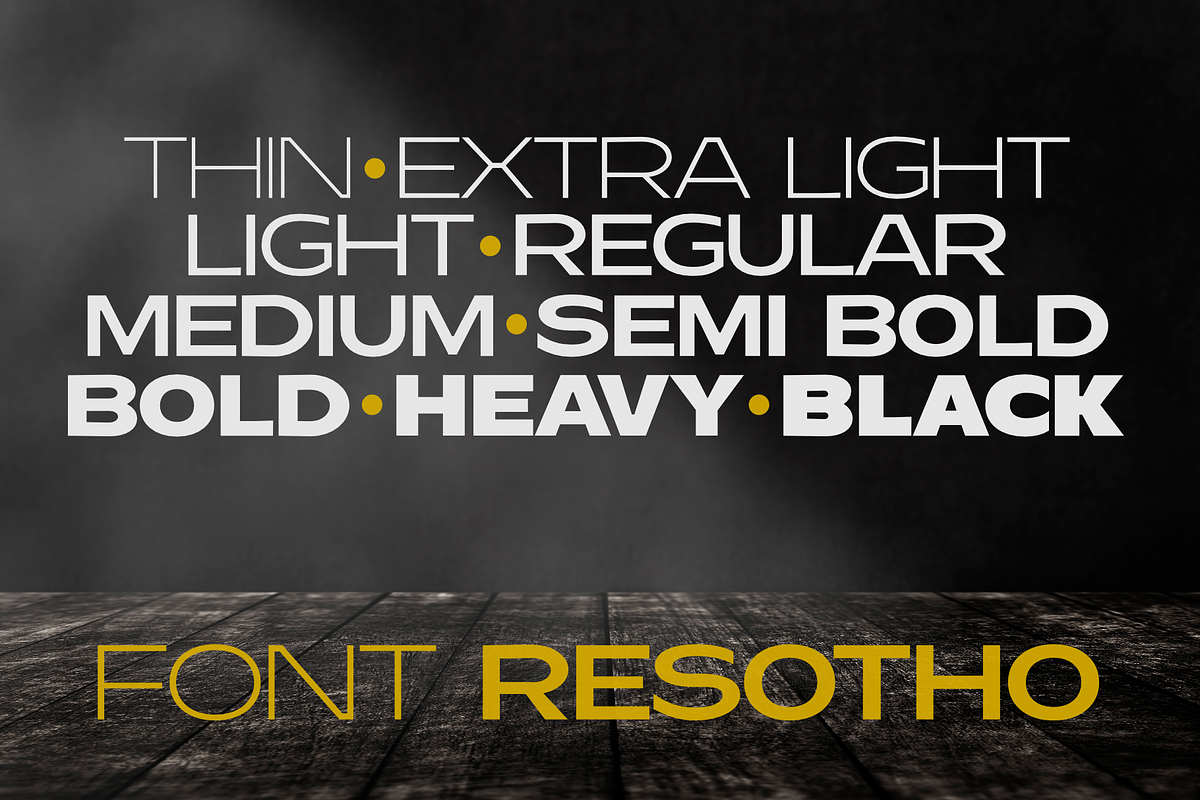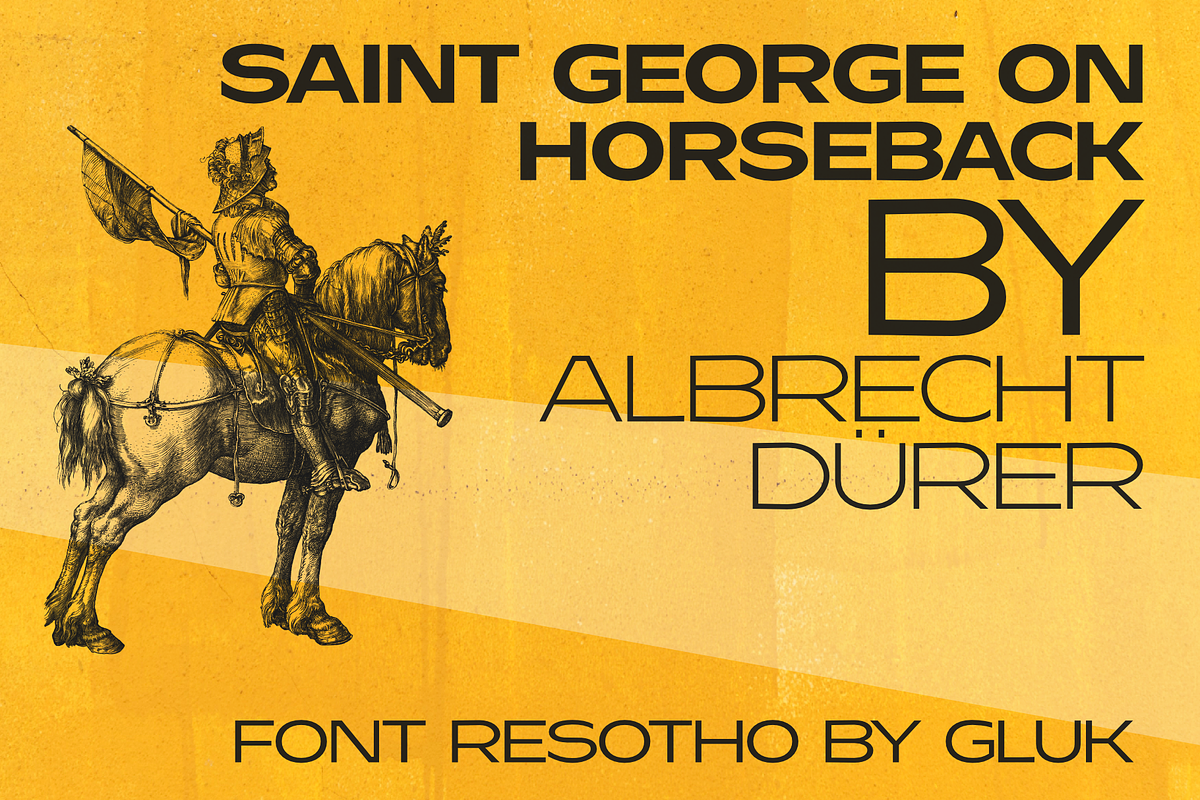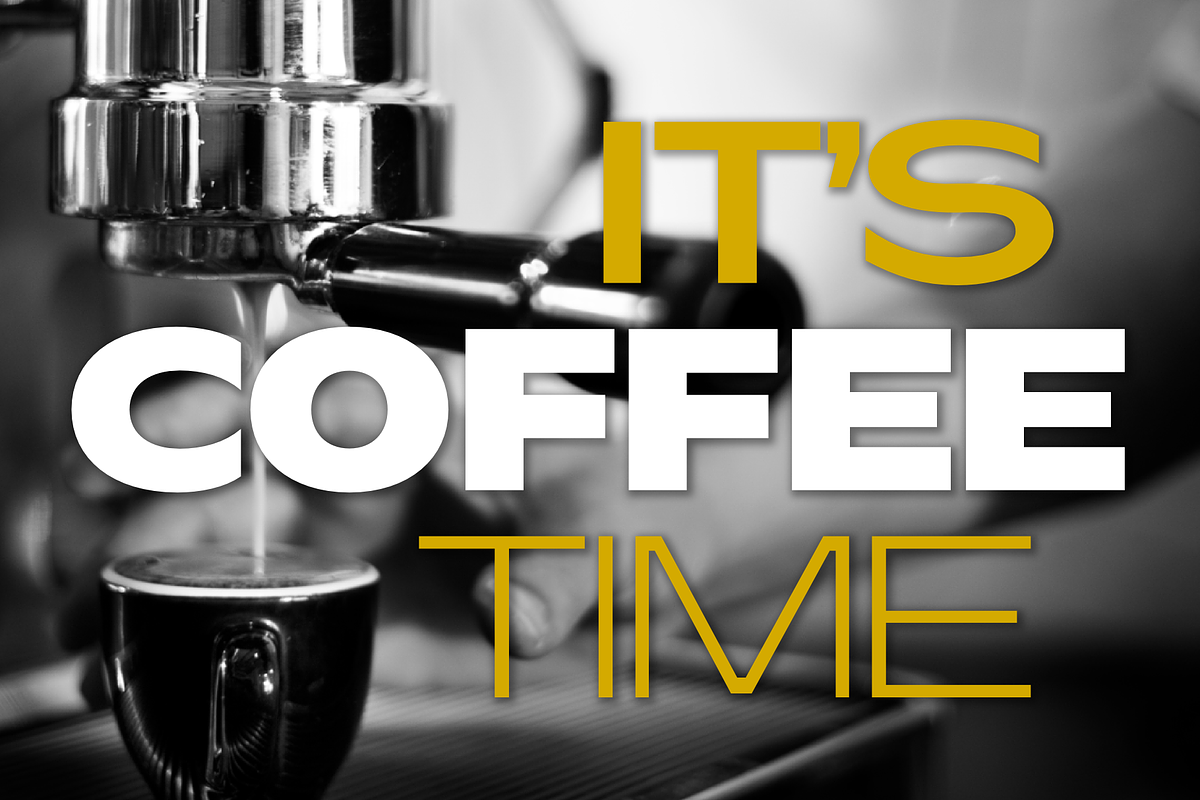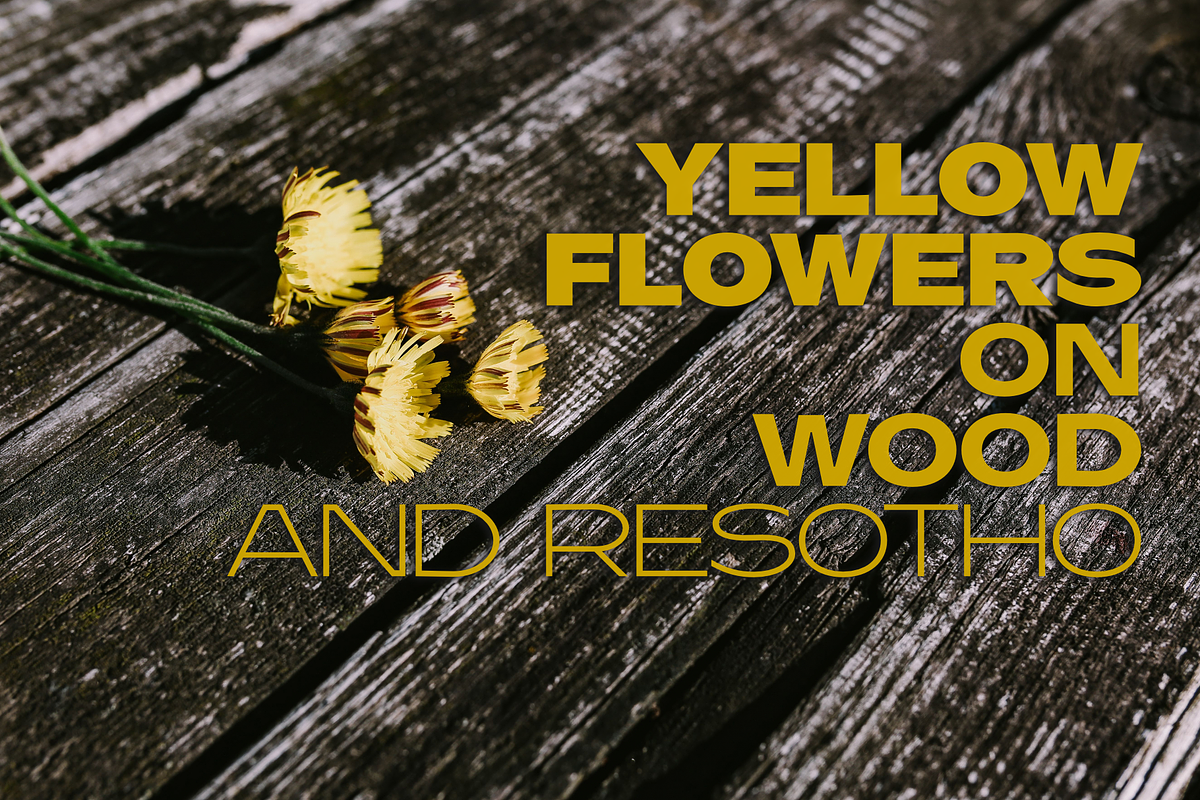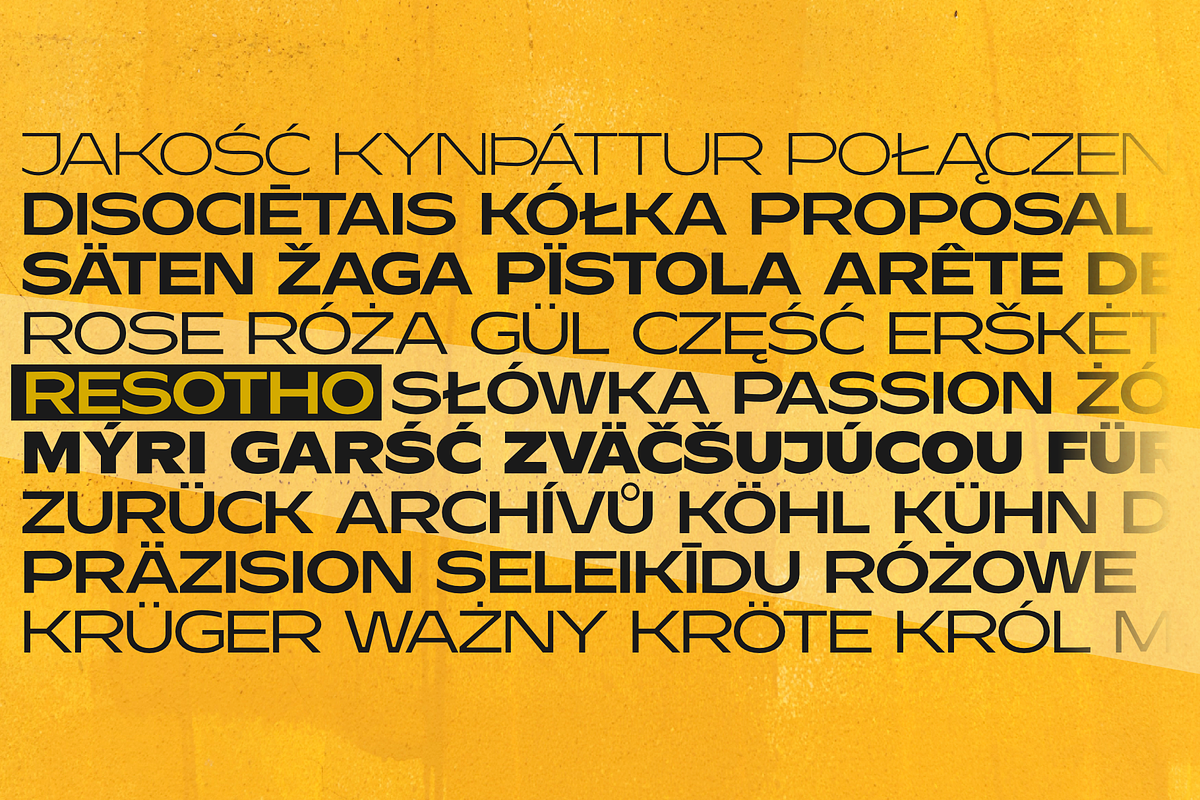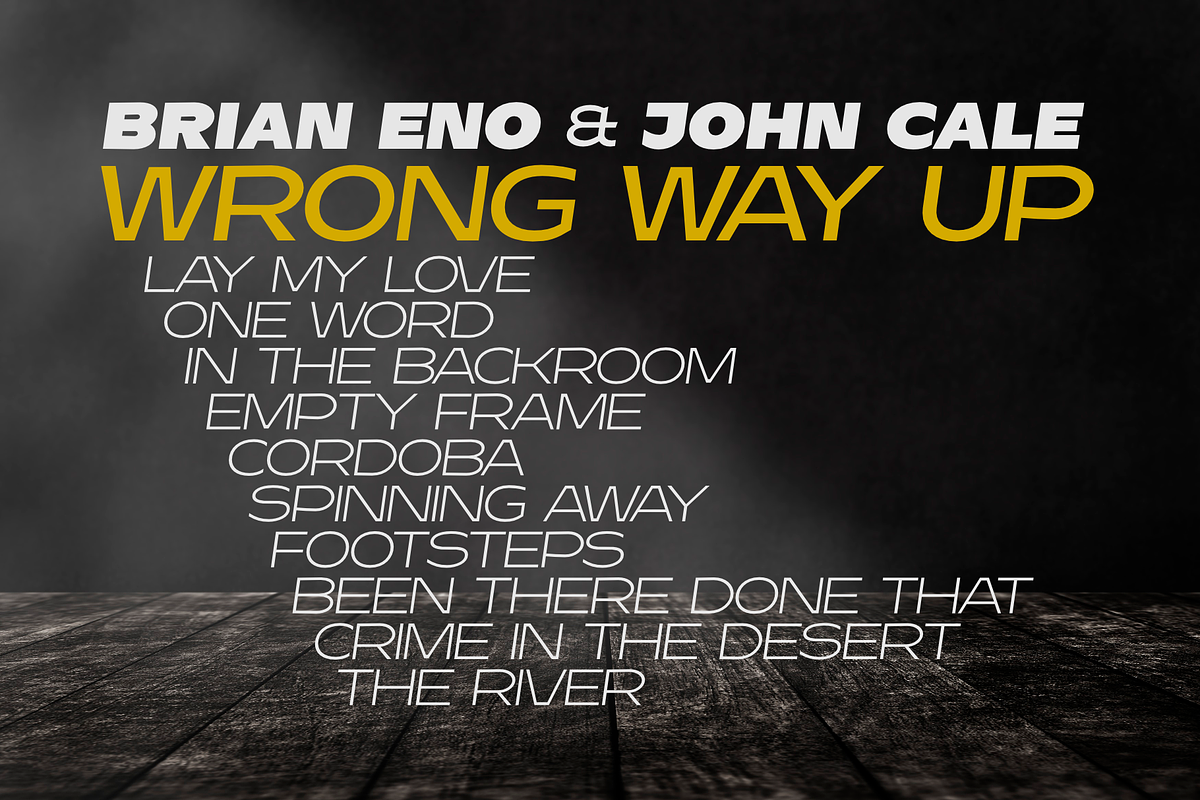
fonts family Resotho
Resotho is a geometric sans serif (uppercase) family. It comes in 18 weights: 9 uprights and 9 italics. Perfect for graphic design, branding, packaging design but very versatile. Language support covering Western, South, and Central Europe.
- Resotho is a geometric sans serif (uppercase) family.
fonts family Resotho by glukfonts fits naturally into Branding, posters, packaging, typography.